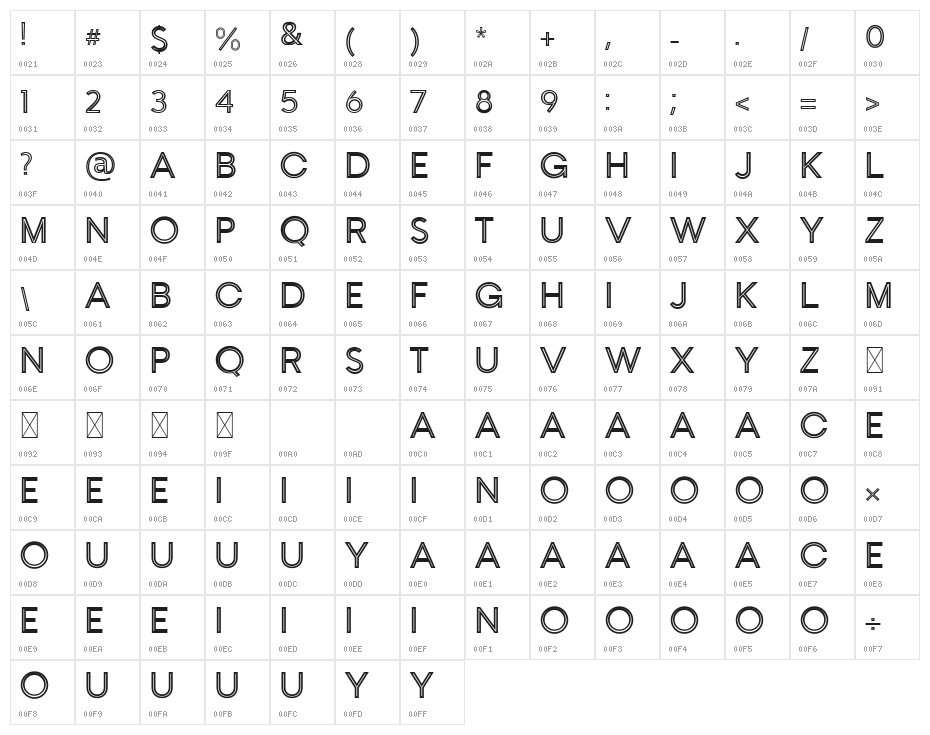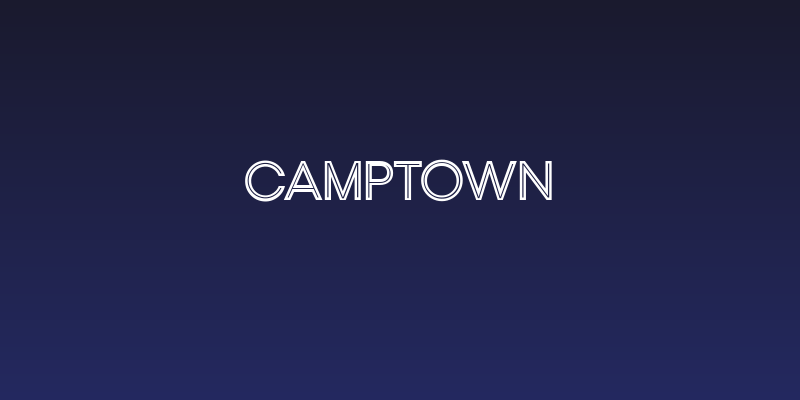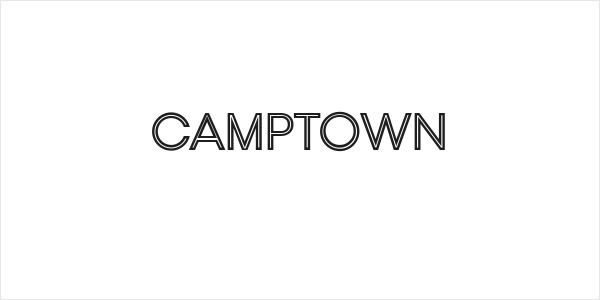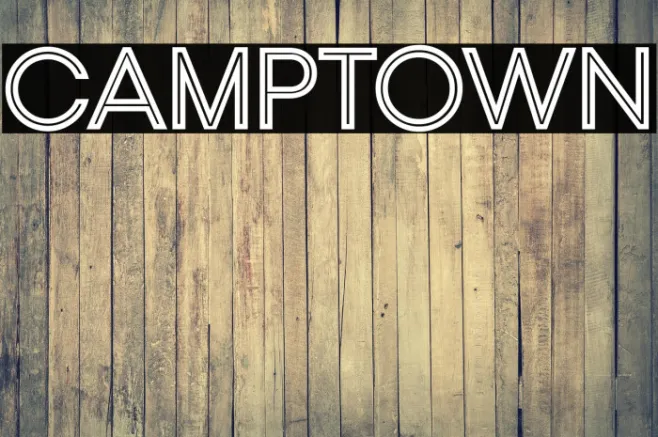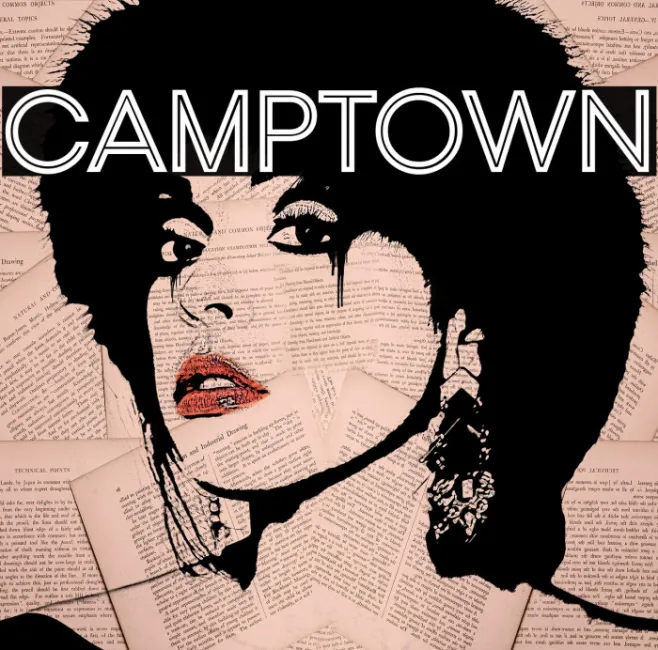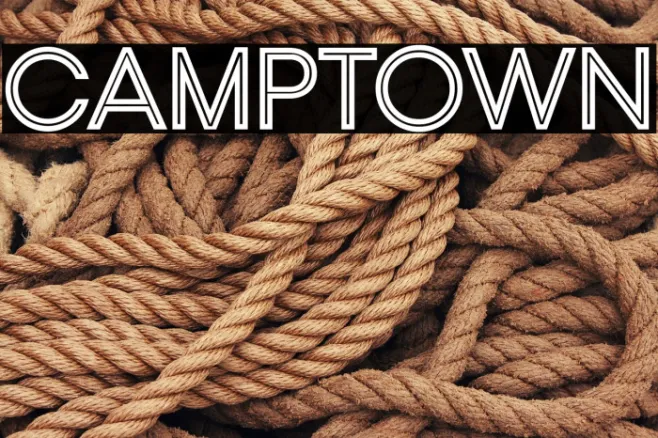
CAMPTOWN Font
CAMPTOWN Description
This font features a bold, geometric sans-serif style with a double-line outline that gives it a distinctive, modern appearance. The uppercase letters are uniform in height, with clean lines and sharp angles, creating a sense of precision and clarity. The lowercase letters maintain the same geometric structure, ensuring consistency throughout the typeface. Numbers and special characters are designed to match the boldness and style of the letters, making them easily readable. The font's overall aesthetic is both contemporary and versatile, suitable for a variety of design applications.